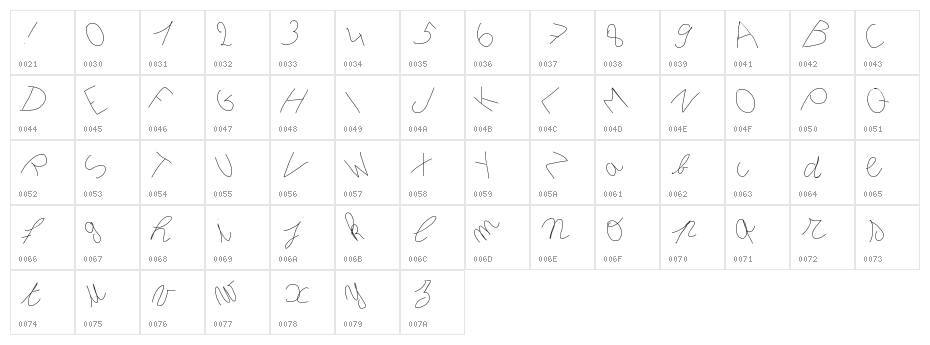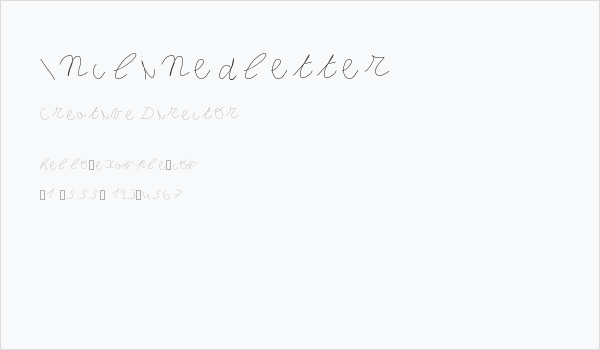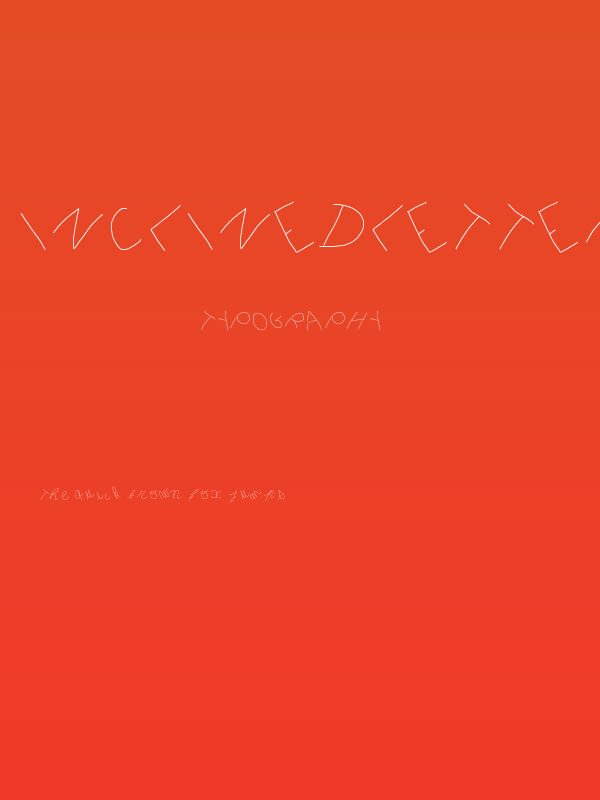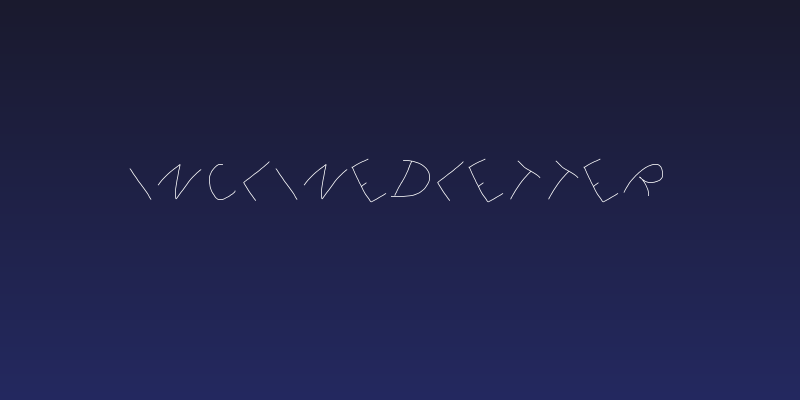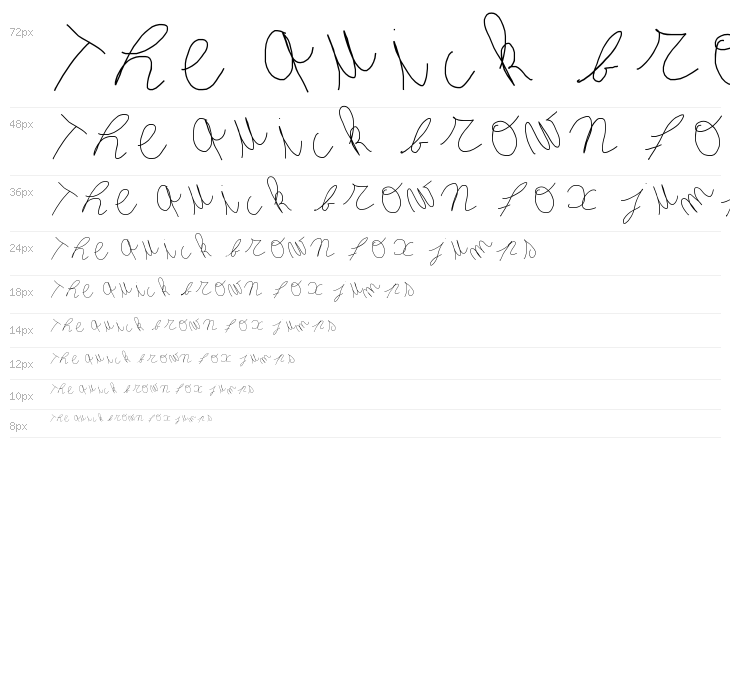
Inclinedletter Font
Inclinedletter Description
This font features a unique, handwritten style with an inclined, flowing appearance. The letters are crafted with a continuous, smooth line that gives them a dynamic and lively character. Uppercase letters maintain a consistent height, while lowercase letters exhibit a playful variability in size and form. The numbers follow the same fluid style, adding a whimsical touch. Special characters are integrated seamlessly, maintaining the overall aesthetic. The font's informal and artistic nature makes it suitable for creative projects that require a personal touch.
| Use Case | Logos, Invitations, Artistic Projects |
| Proposed Projects | Ideal for greeting cards, personal branding, artistic posters, and creative invitations. |